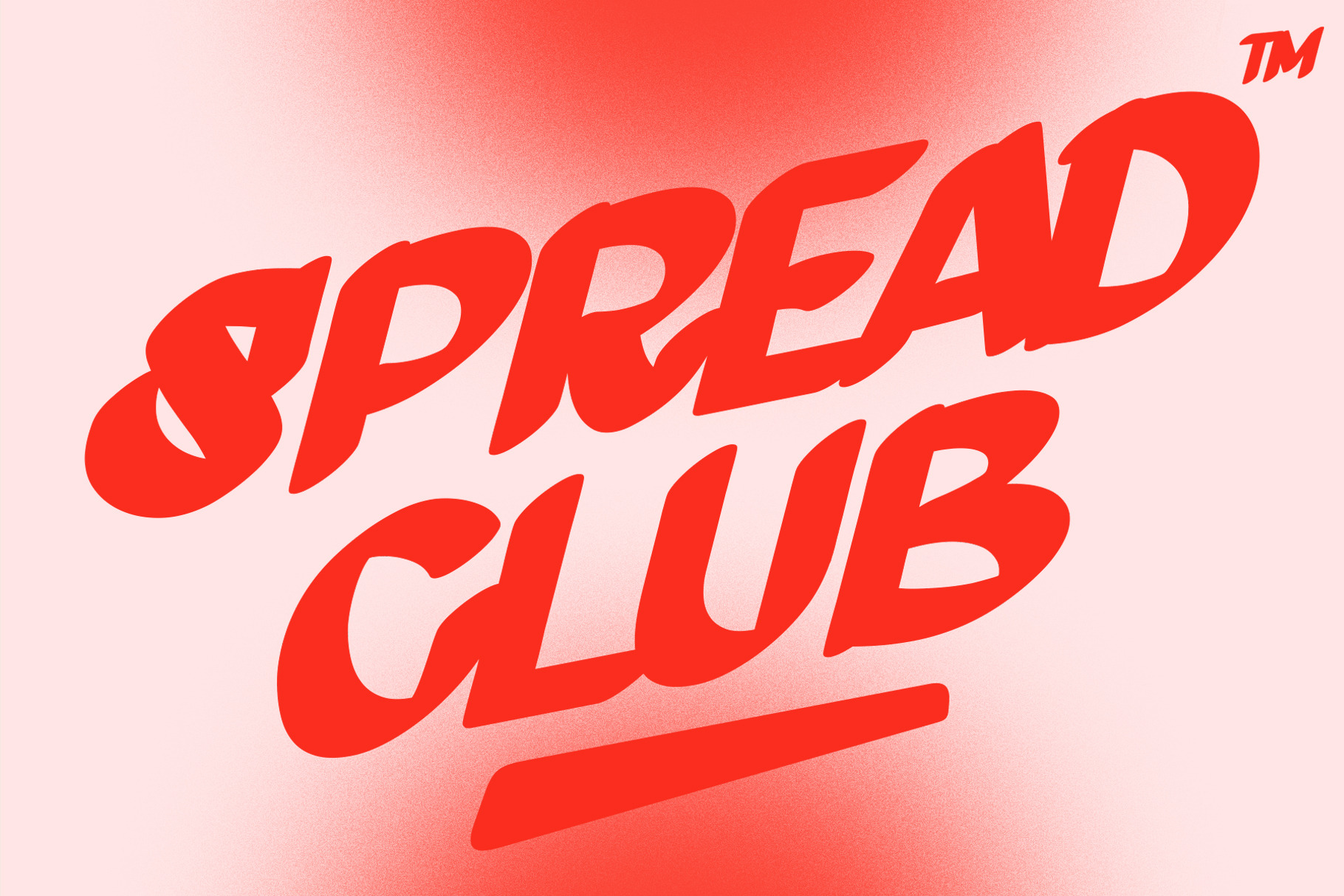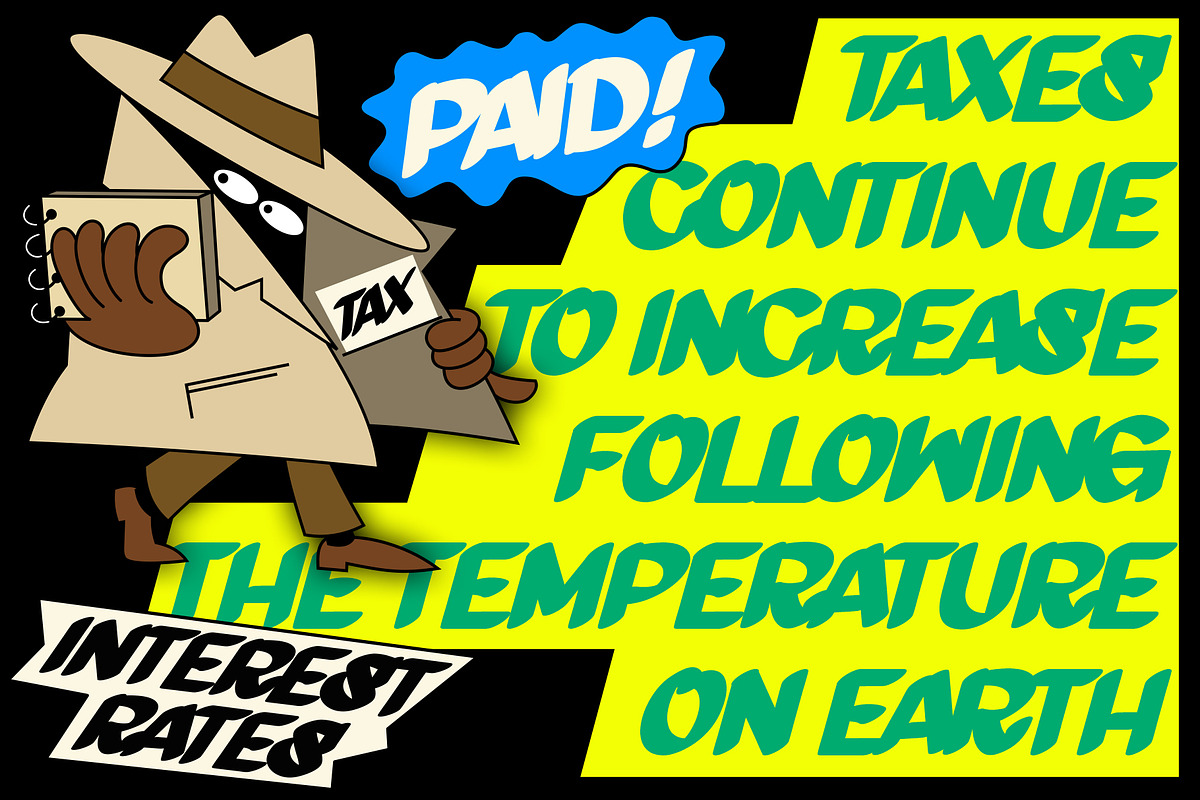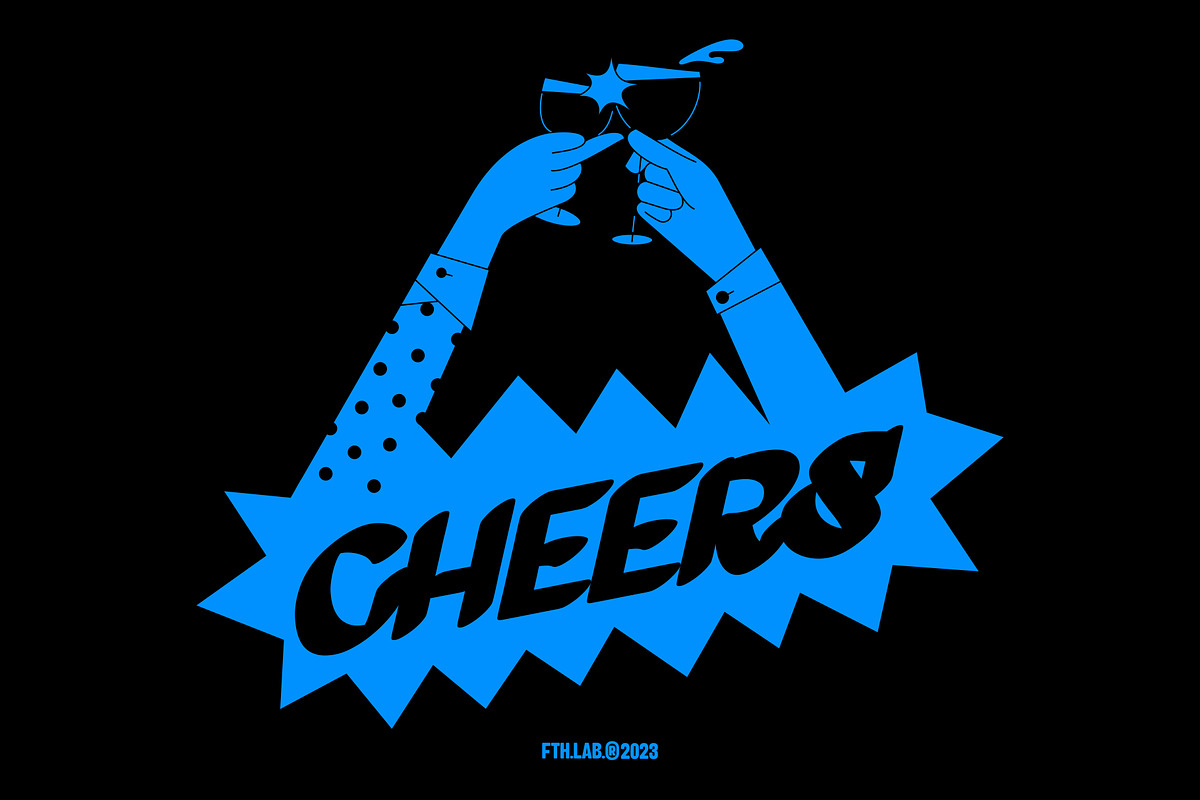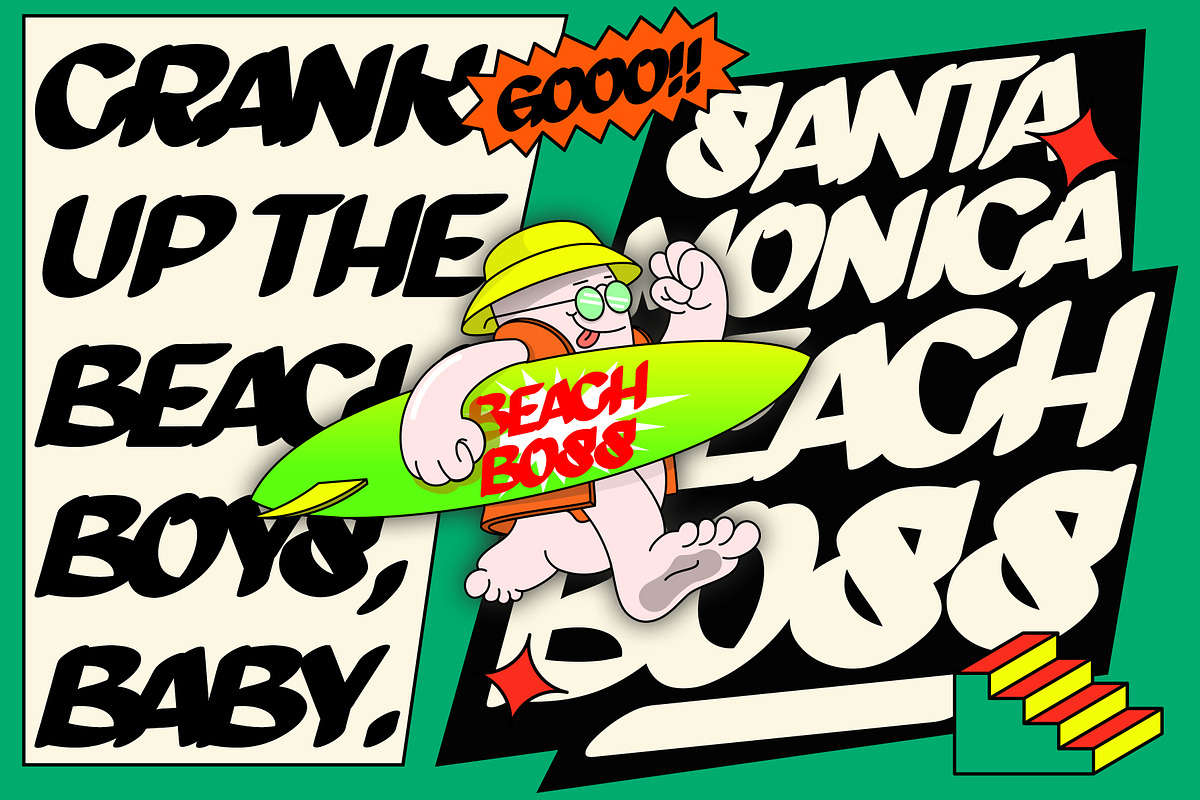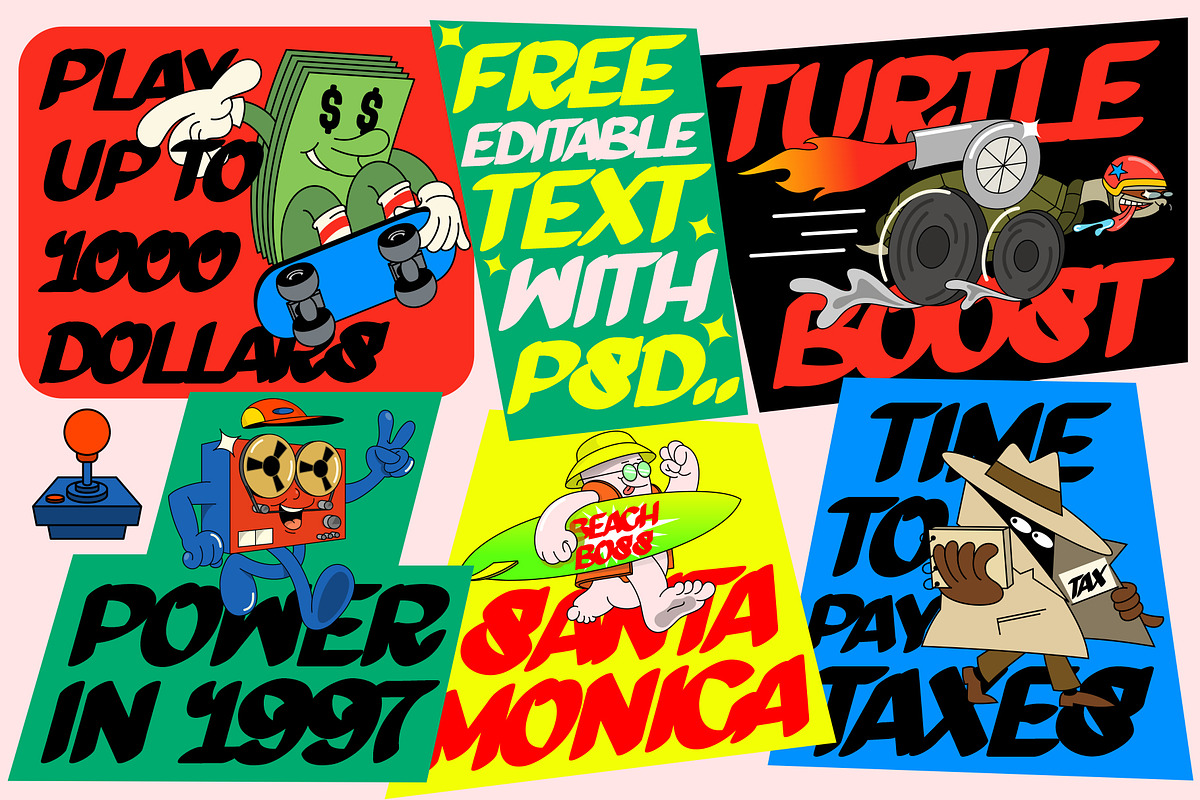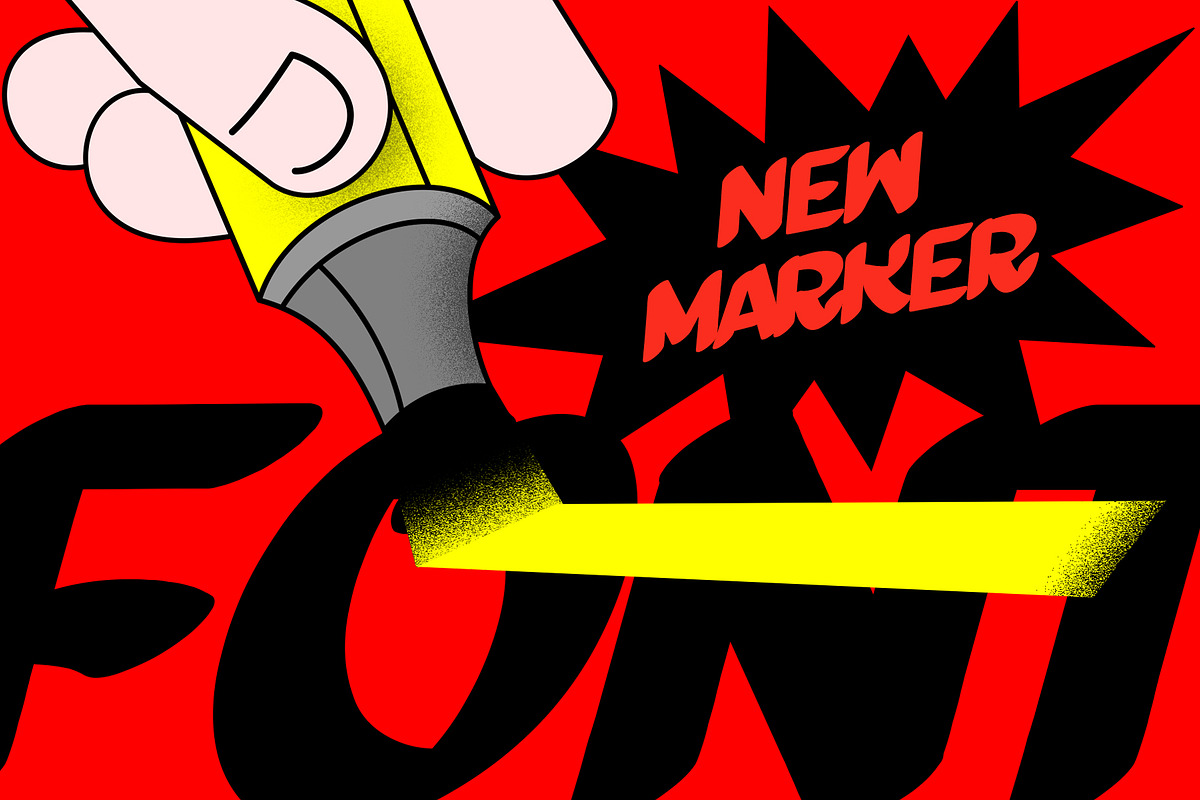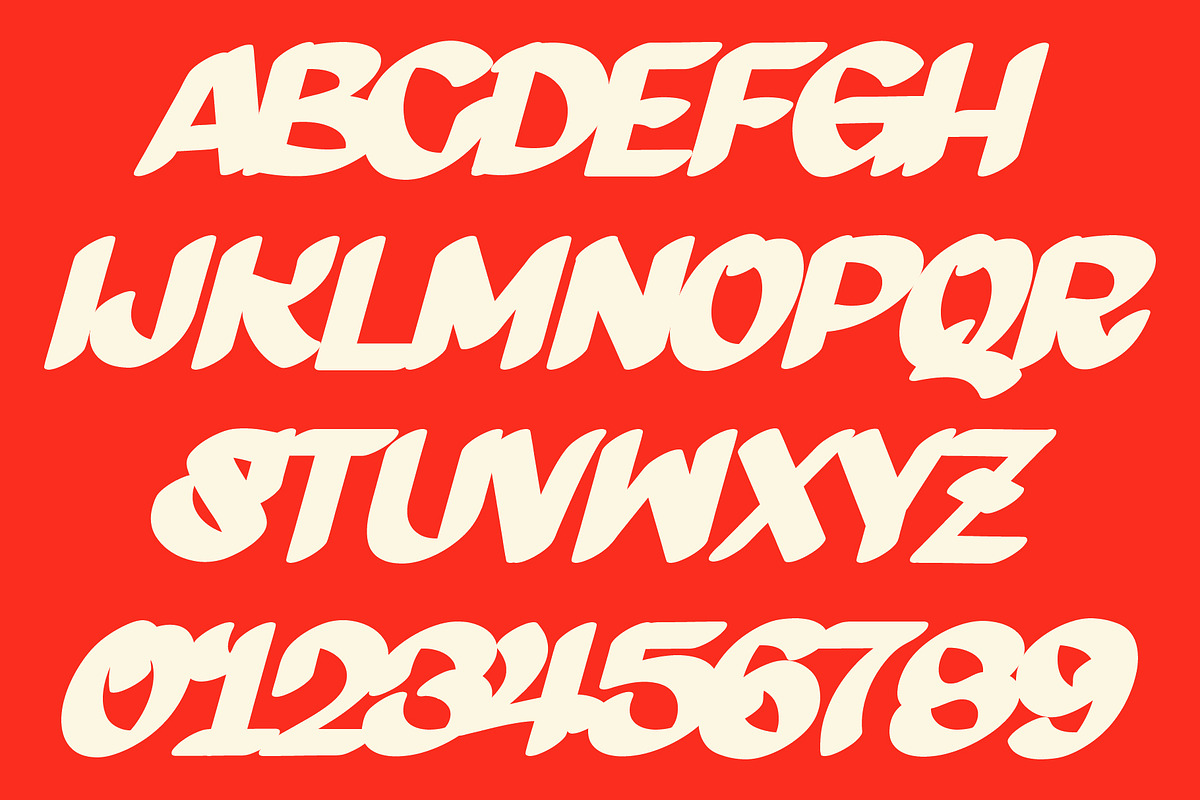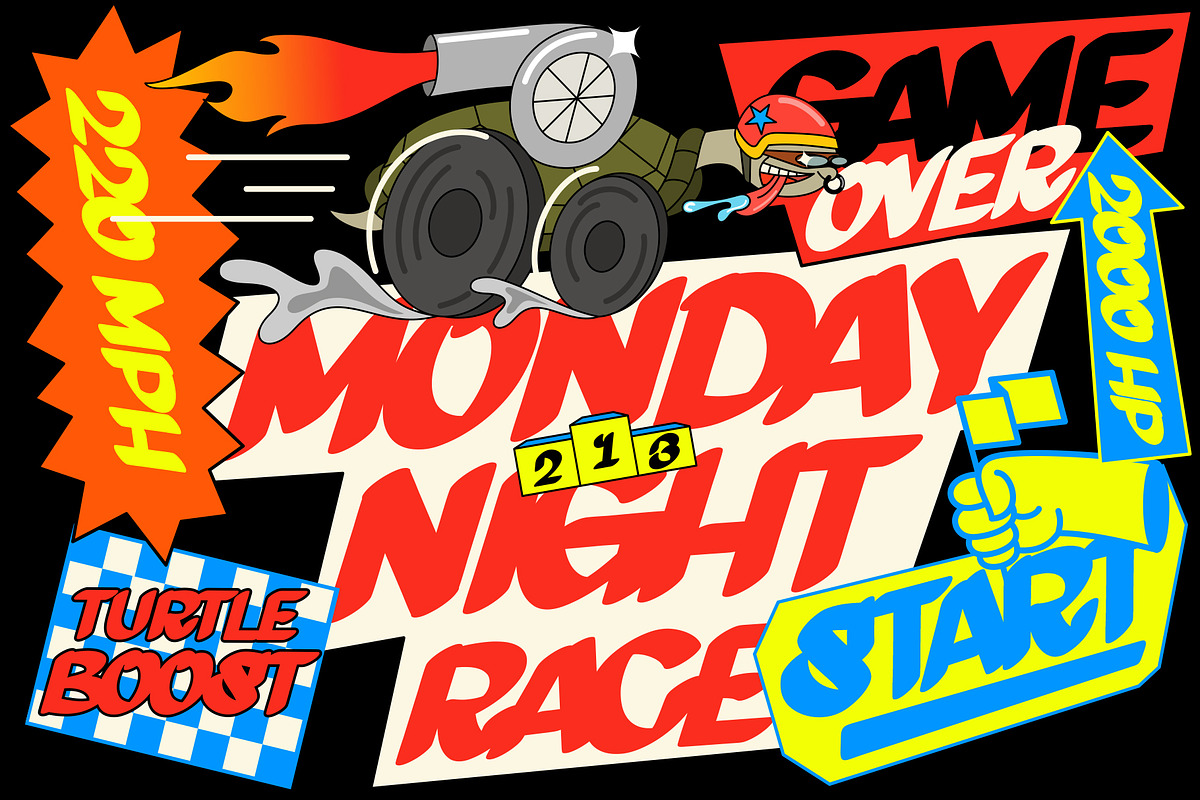
SPREAD CLUB | MARKER MODERN FONT!!
SPREAD CLUB!! Latest font with marker style, plus bonus illustrations and editable text combinations. Its weight is superior in posters, social media, headlines, large format prints - and anywhere else you want to get noticed.